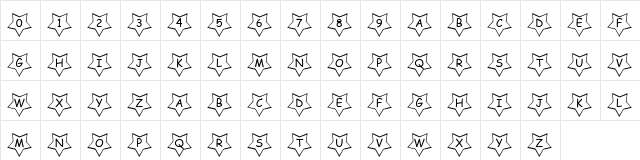
pf_five pointed star Regular
Design Context for pf_five pointed star Typeface
pf_five pointed star is a composed and adaptable typeface that performs quietly and consistently across a wide range of design contexts.